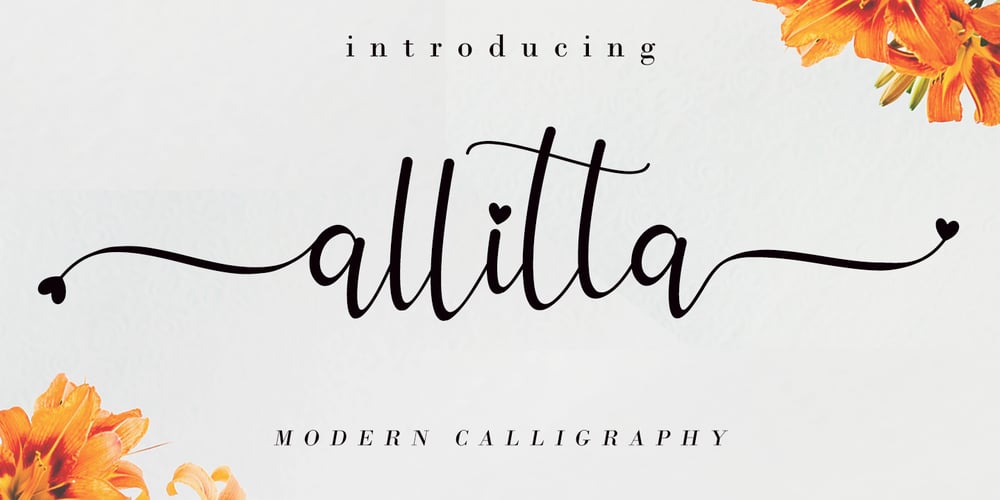
Allitta Calligraphy Font Family was designed by Agung Eko Nugroho and published by AEN Creative Studio. Allitta Calligraphy contains 2 styles and family package options. Allitta is an elegant script font. It features beautiful swashes that will take your projects to the next level.Fall in love with its authentic feel and use it to create gorgeous wedding invitations, beautiful stationary art, eye-catching social media posts, and cute greeting cards.